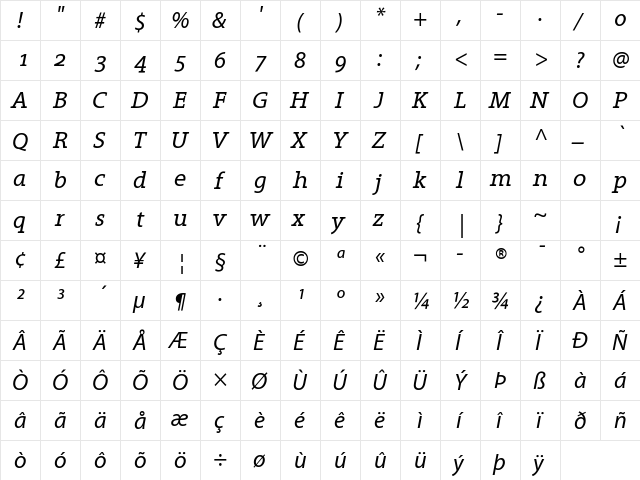
Grandesign Neue Serif Italic
Design Context for Grandesign Neue Serif Typeface
Grandesign Neue Serif brings classic typographic sensibility to the table — its serifs and measured letterforms reflect centuries of print heritage. The slanted form adds forward momentum and visual energy.
Pro Tip: Set Grandesign Neue Serif with slightly loose tracking in headlines to let each letterform's detail read clearly at display sizes.